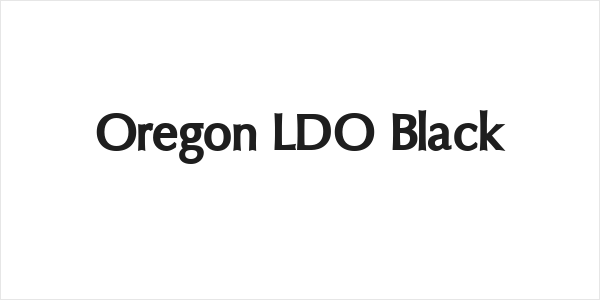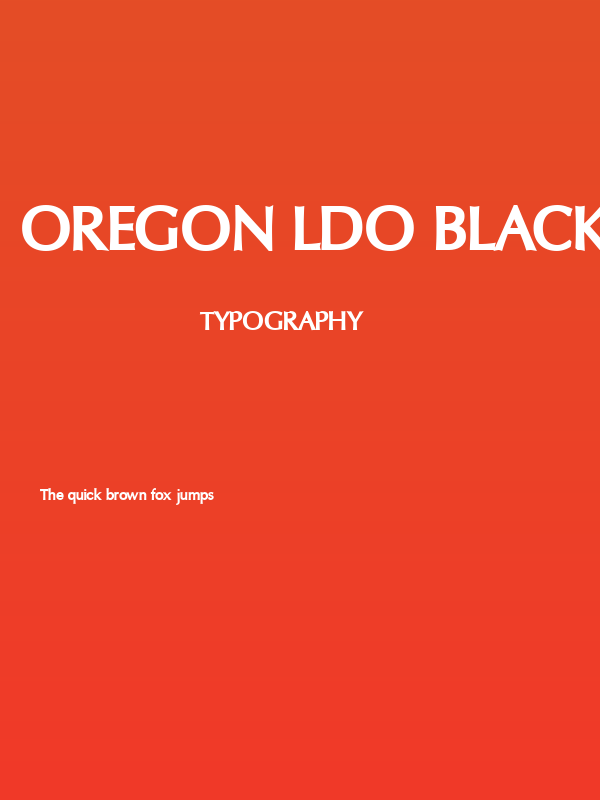
Oregon LDO Black Font
Oregon LDO Black Description
This font exhibits a bold and assertive style with strong, clean lines and a modern aesthetic. The uppercase letters are tall and commanding, while the lowercase letters maintain a consistent weight, providing a balanced and cohesive look. The numerals are clear and legible, making them suitable for various applications. The special characters are well-defined, adding versatility to the font. Overall, it conveys a sense of strength and professionalism, making it ideal for impactful headlines and branding.
| Proposed Projects | Ideal for branding, headlines, posters, and advertising materials where a strong visual impact is needed. |